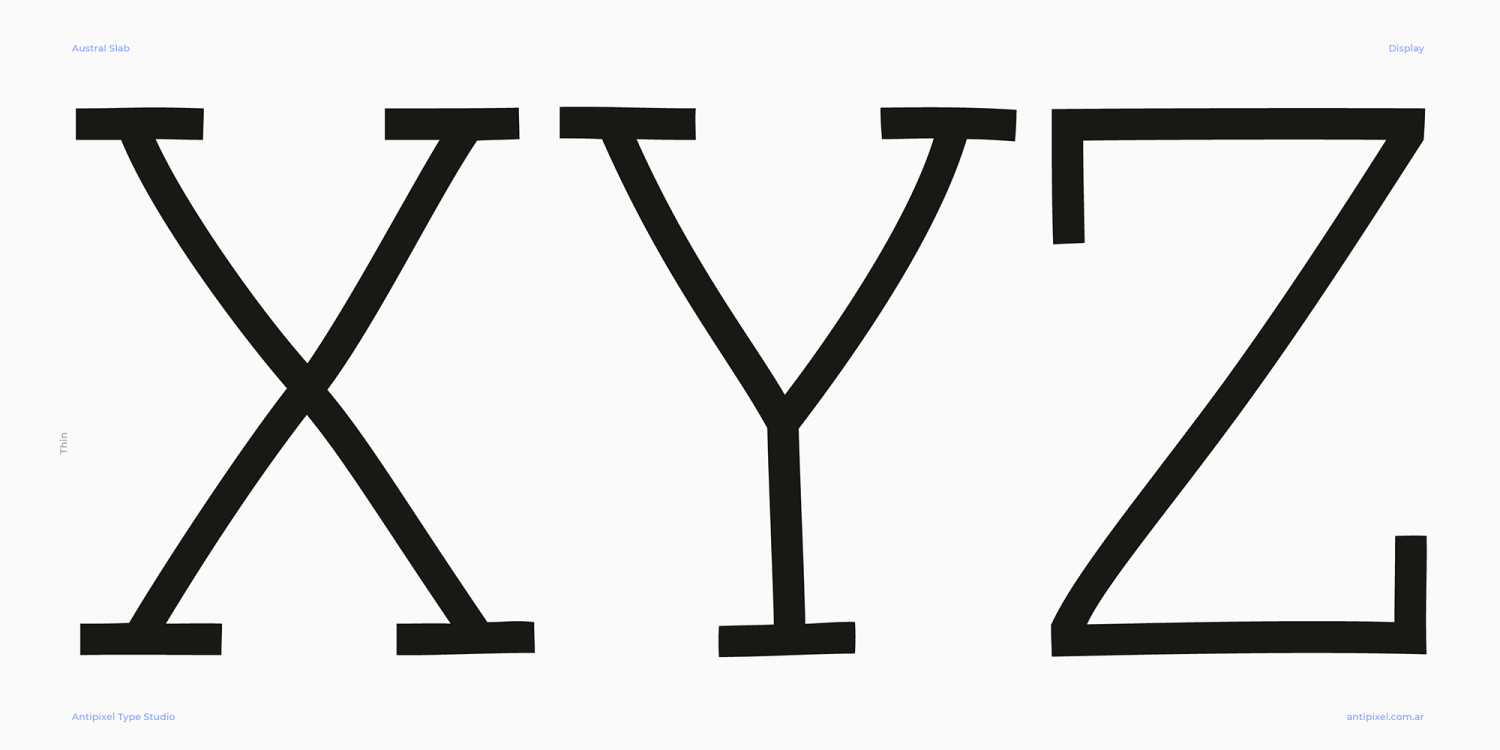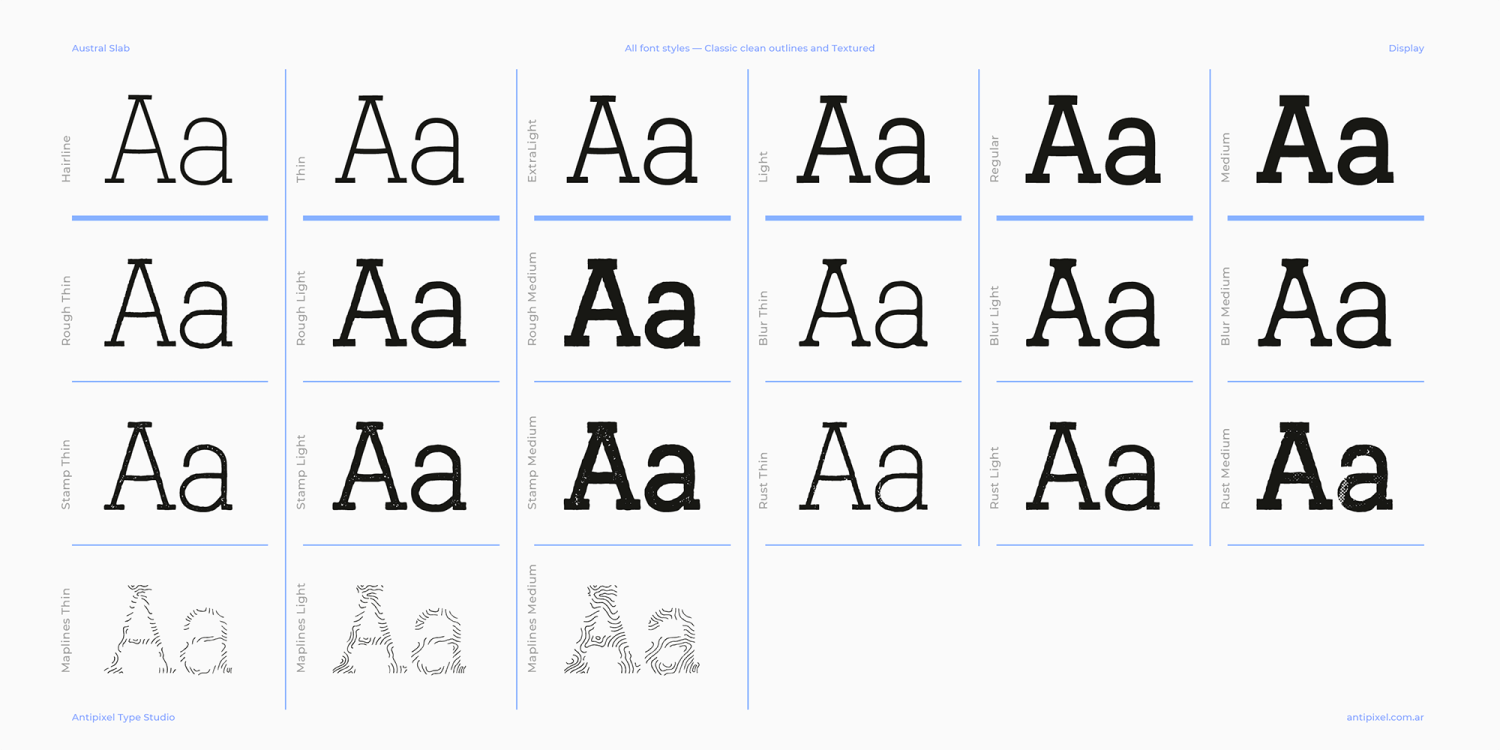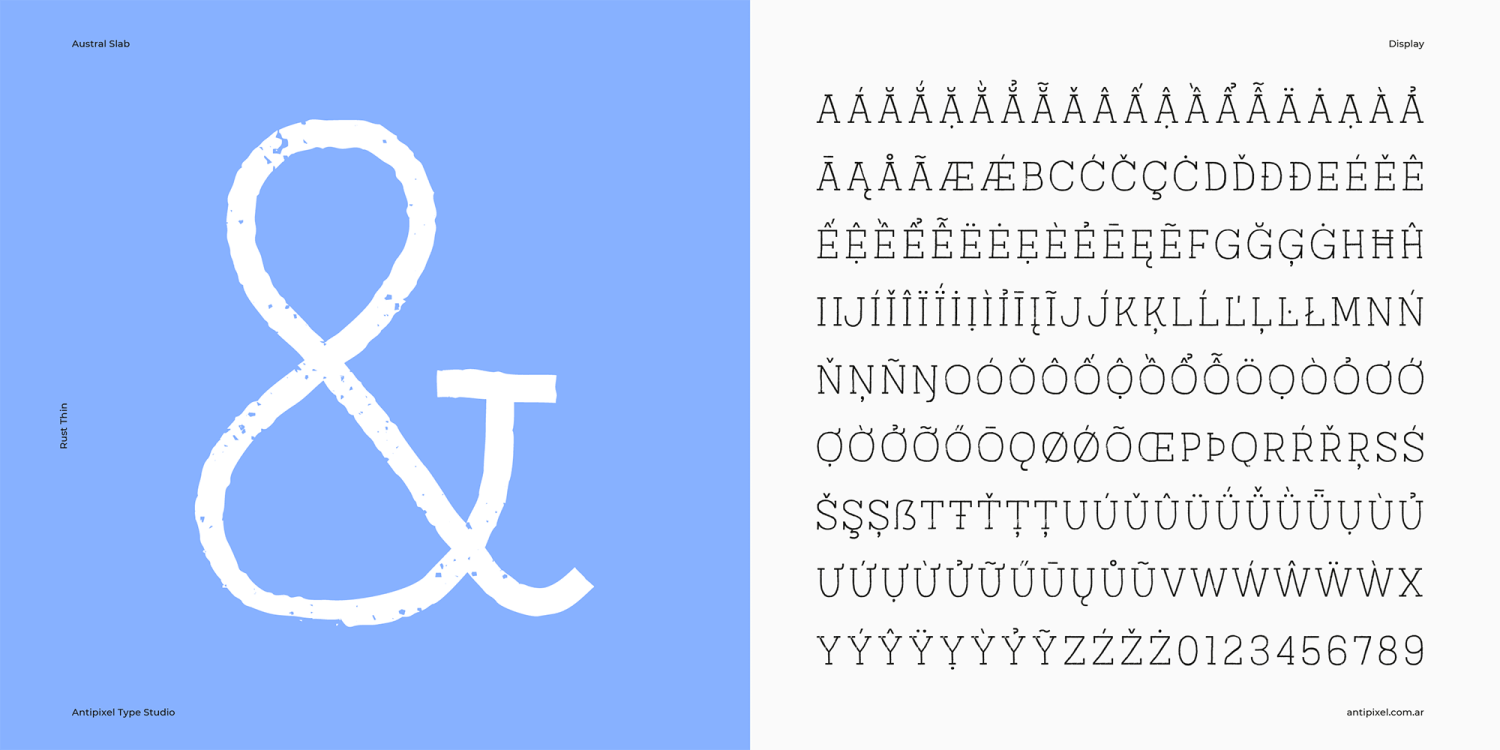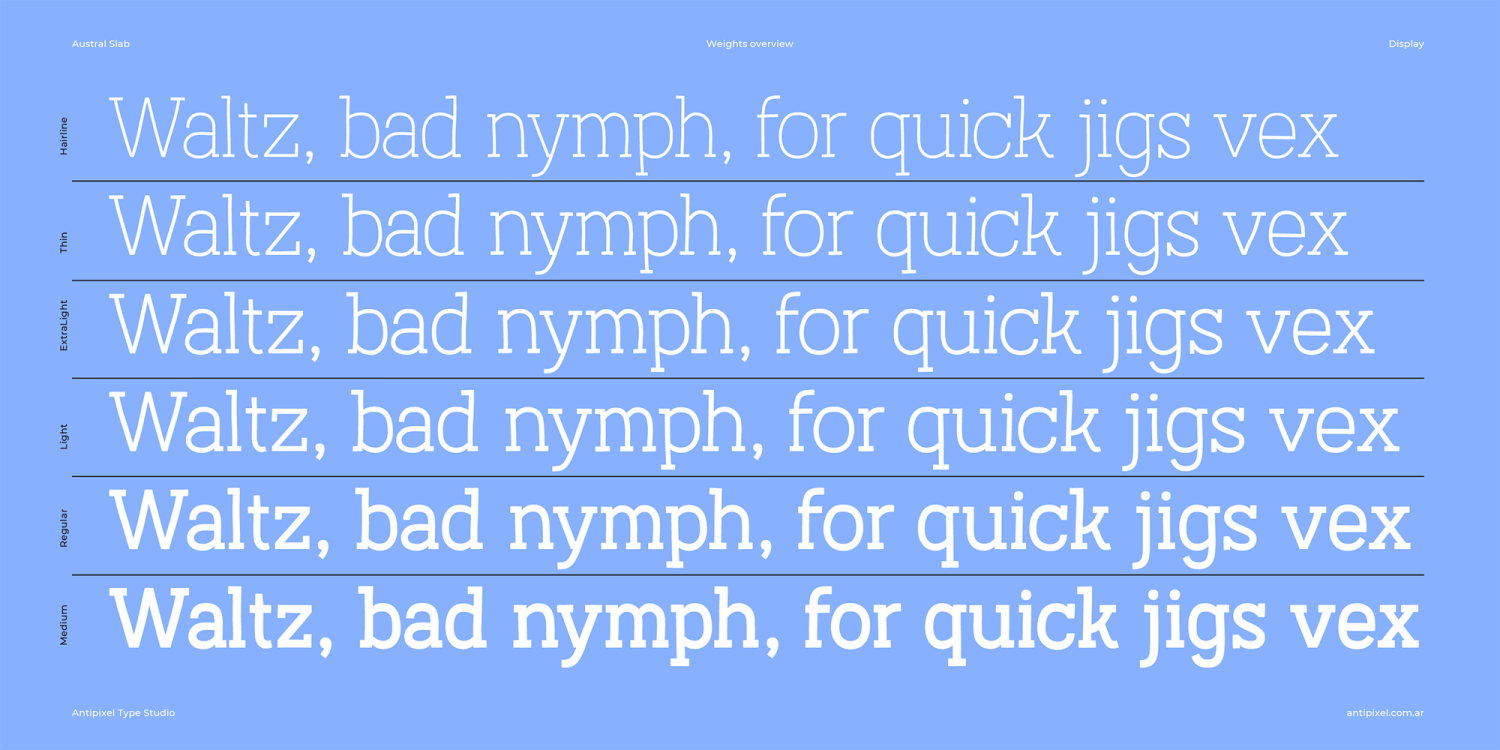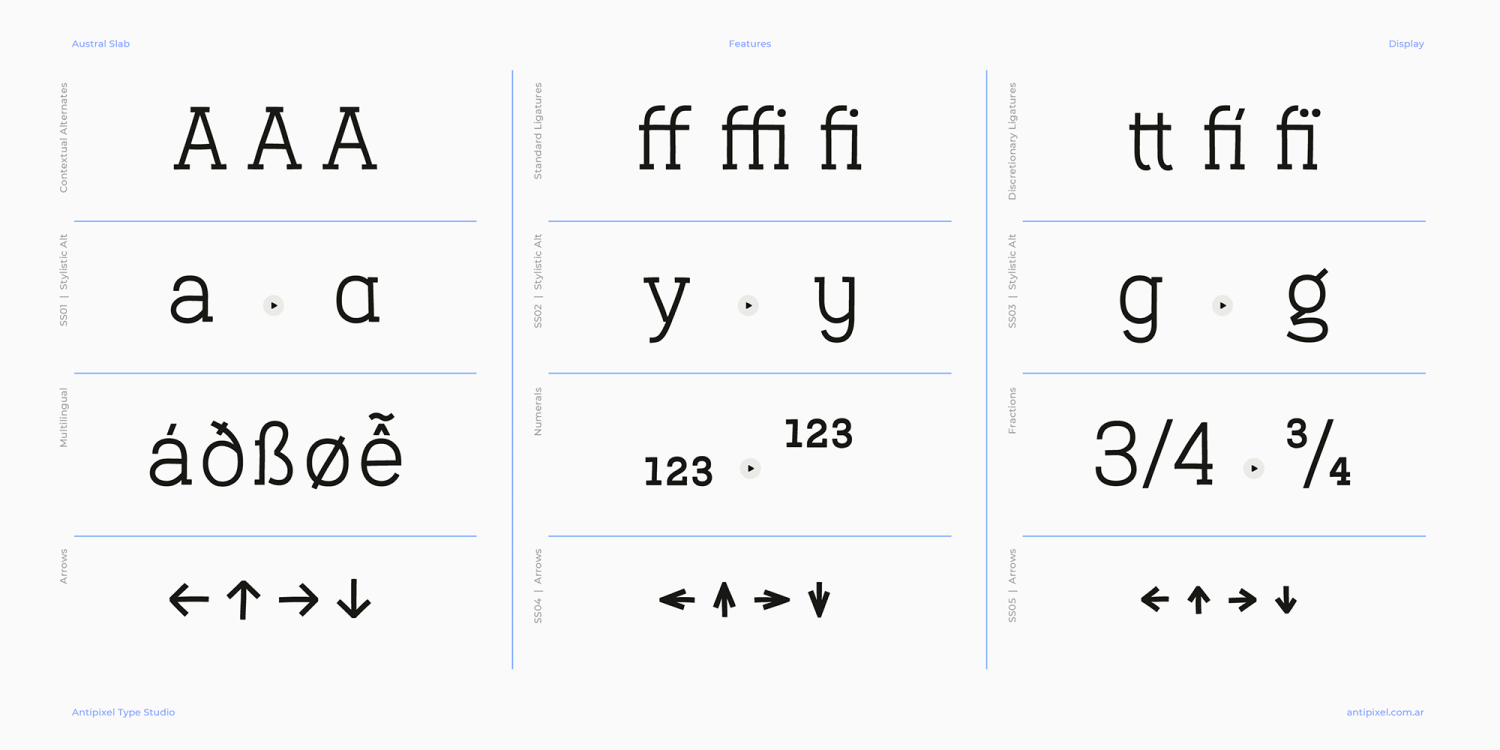
Austral Slab is a hand-drawn layered type family. It is casual, robust, and spirited. It is monolinear in spirit, despite having irregular stems that give the fonts an eroded effect (particularly exaggerated in the Medium styles). It was originally released…